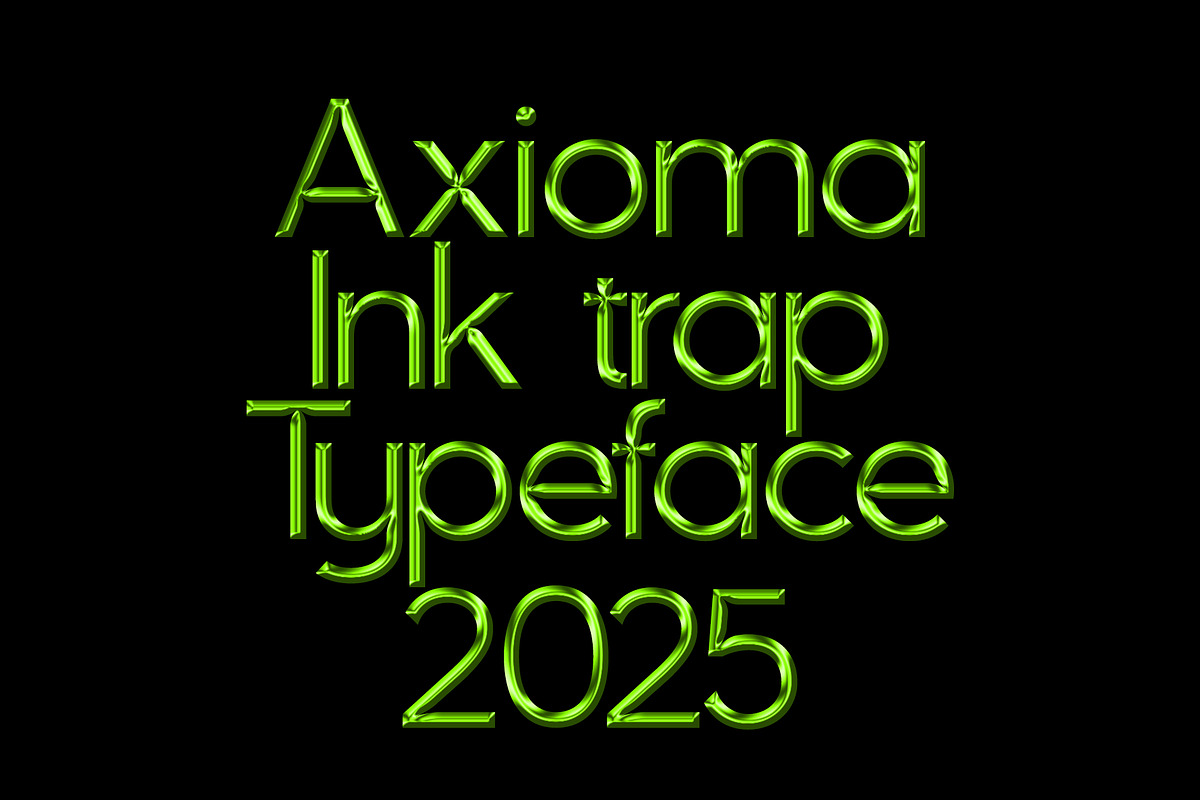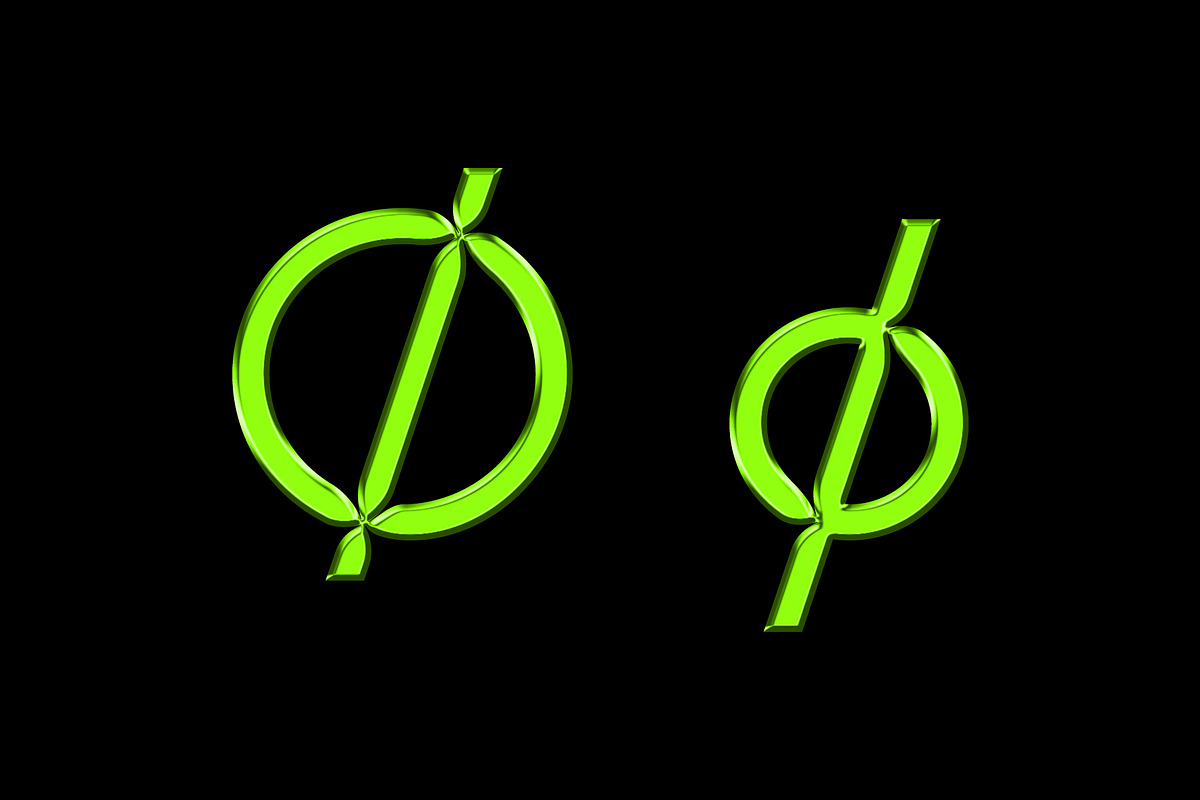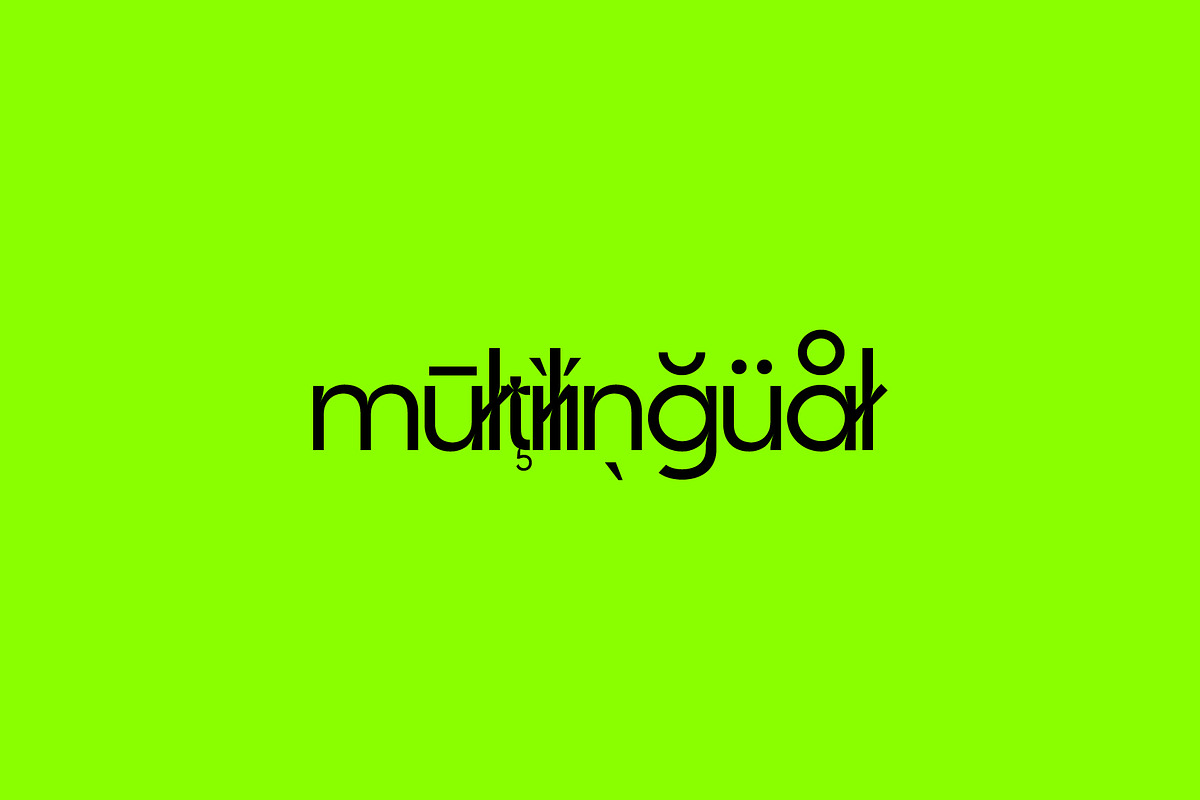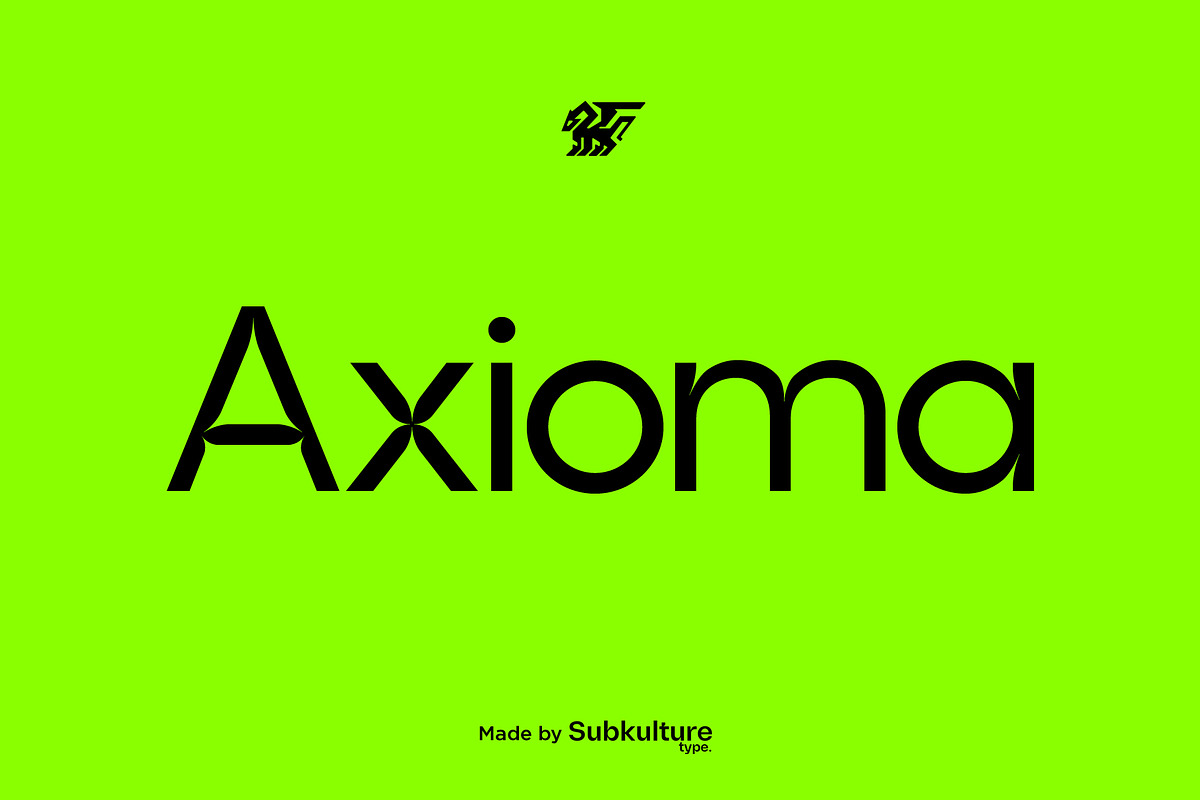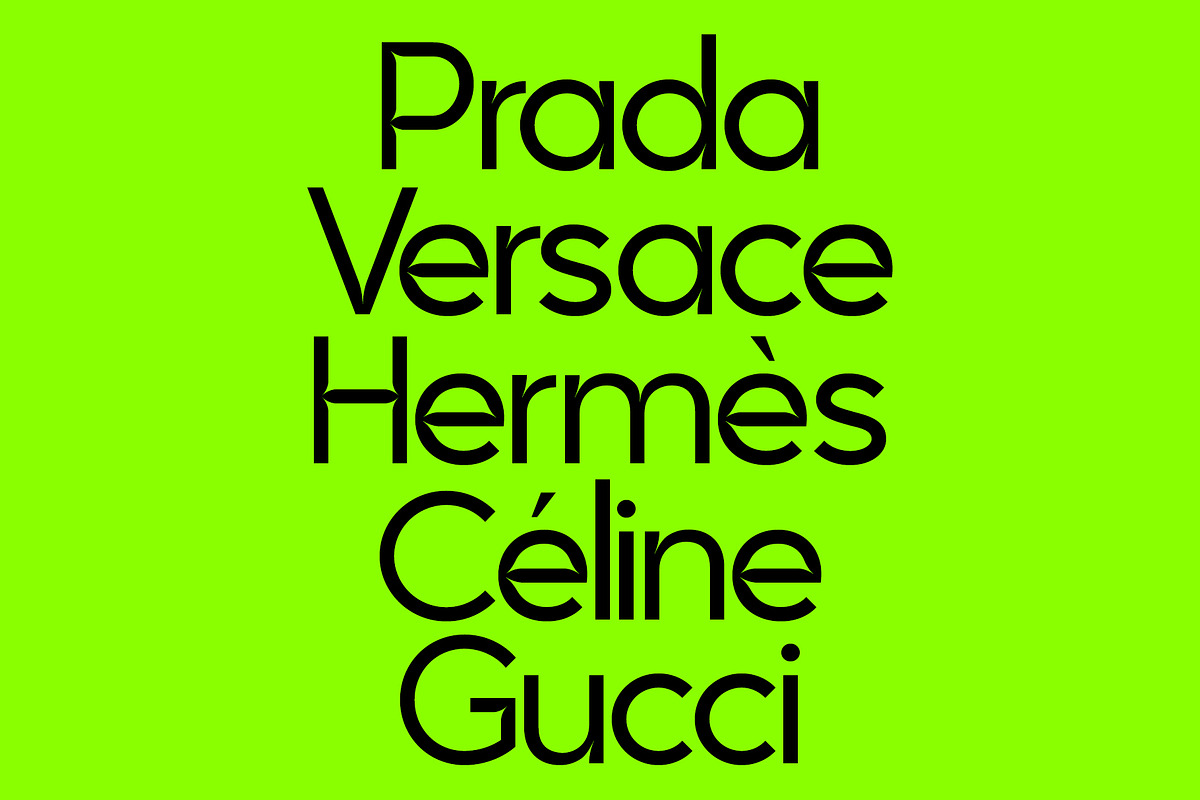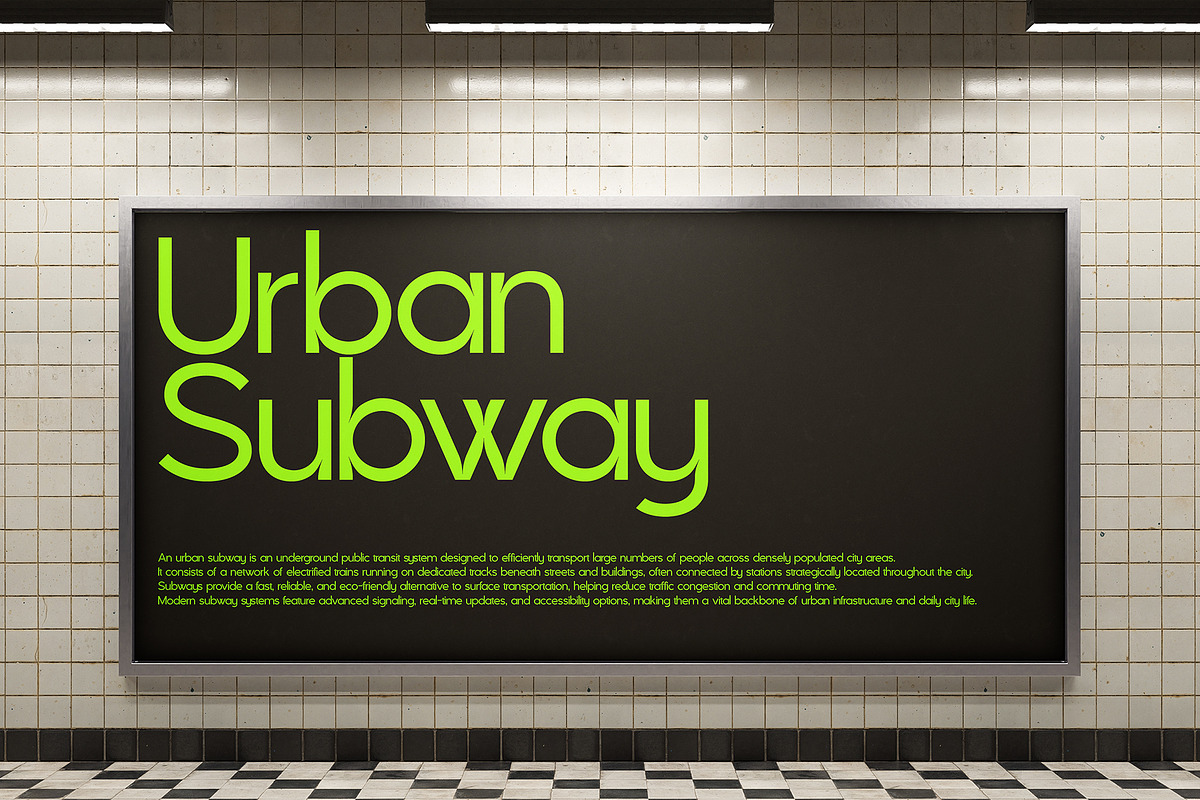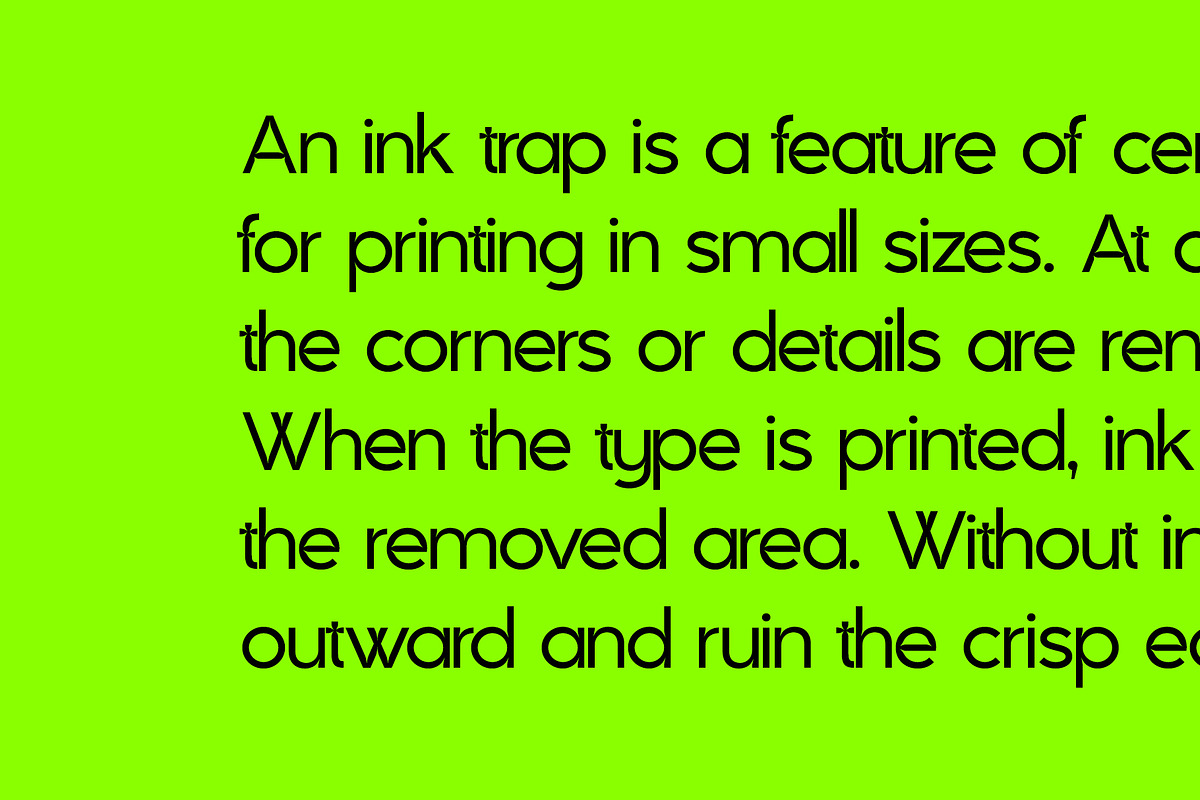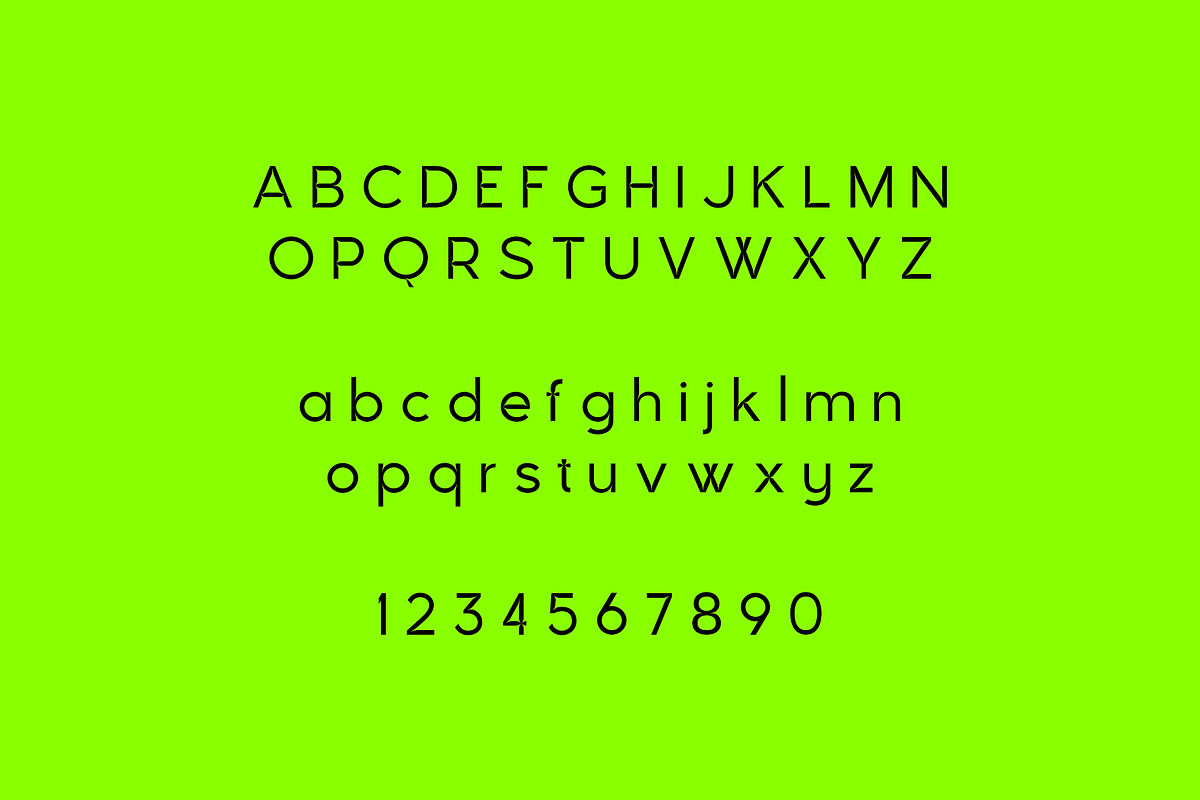
Axioma - Ink trap Sans Serif
Axioma is a modern sans serif typeface that fuses geometric precision with expressive ink traps. Designed for high readability and striking visual impact, its clean lines are interrupted by intentional cuts and traps—echoes of print-era engineering reimagined for digital versatility. The ink traps not only serve a functional purpose at small sizes but also add a distinctive personality at larger scales, making Axioma ideal for branding, editorial, and digital interfaces.
Axioma features uppercase & lowercase letters, numbers & symbols, multilingual support, over 250+ glyphs.